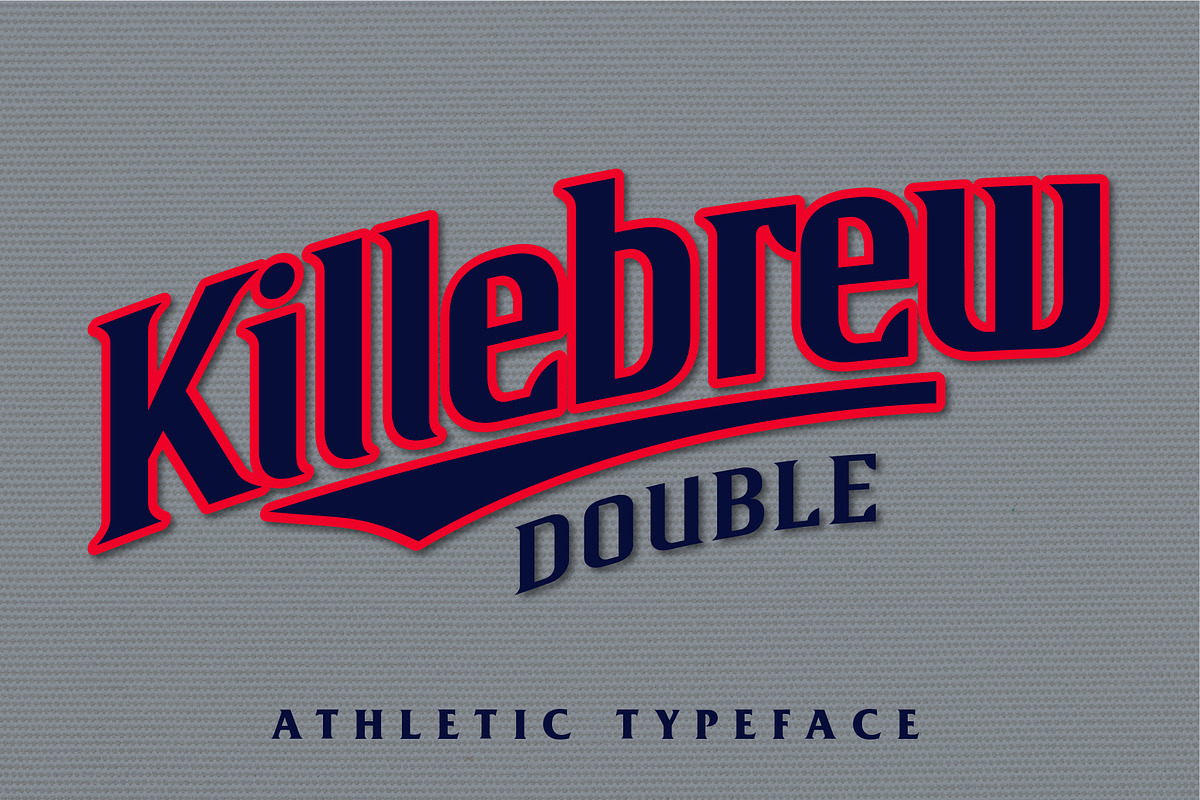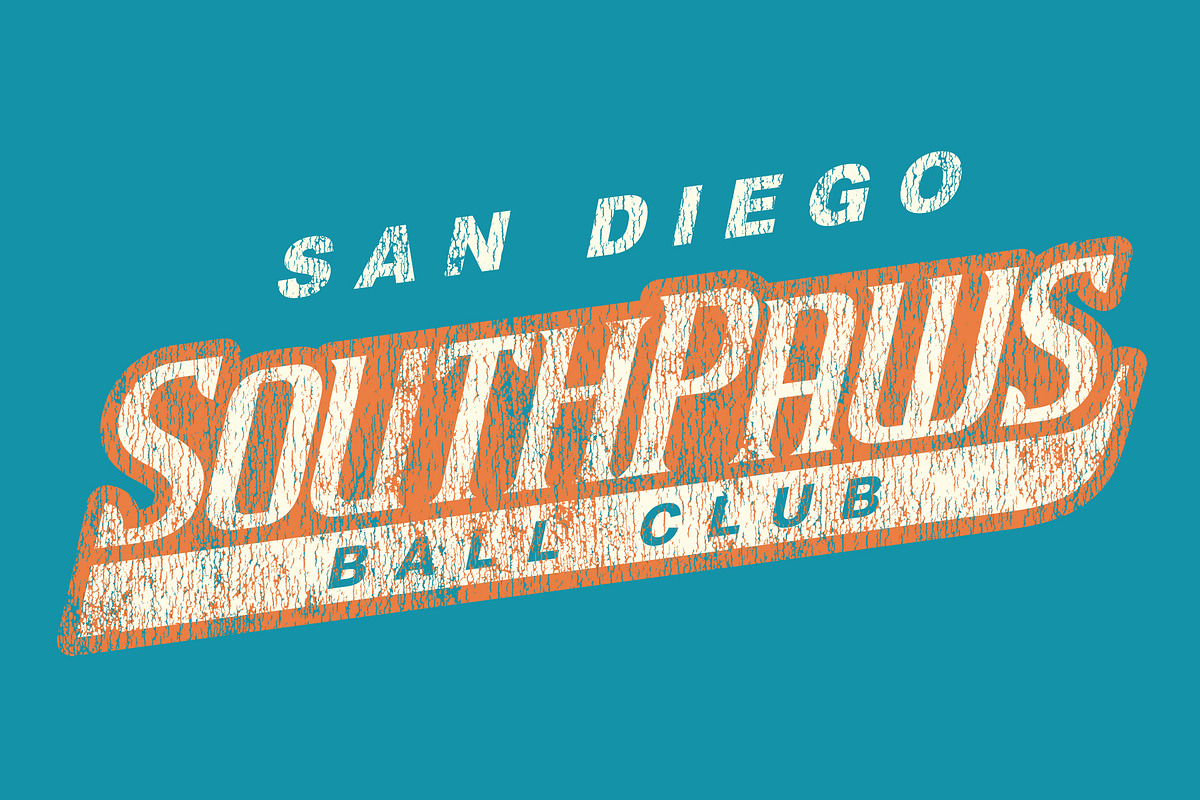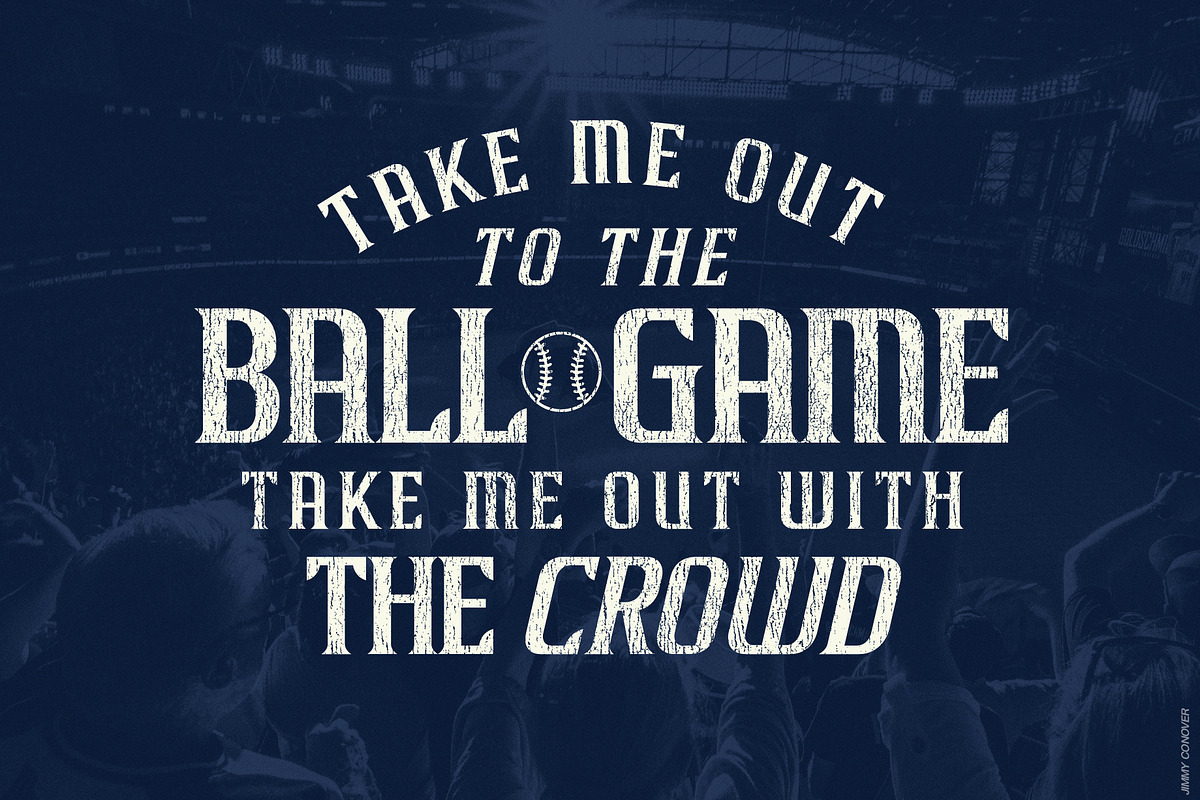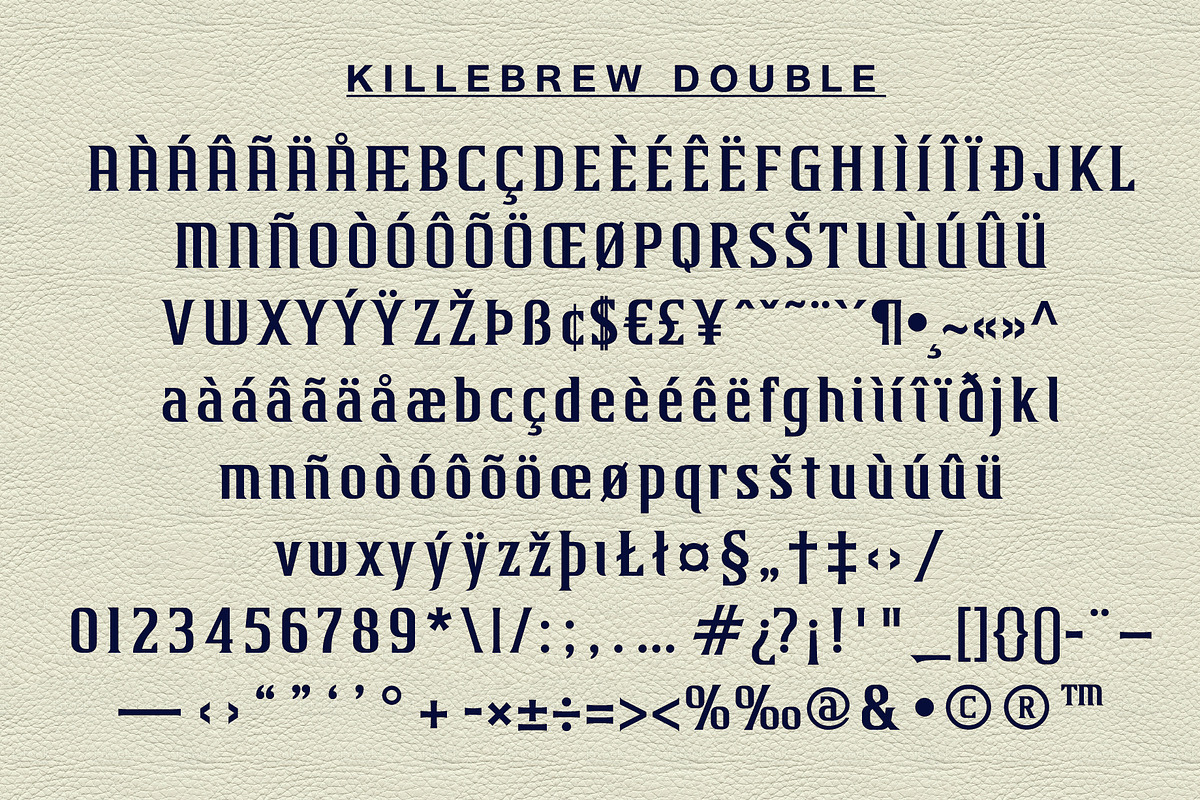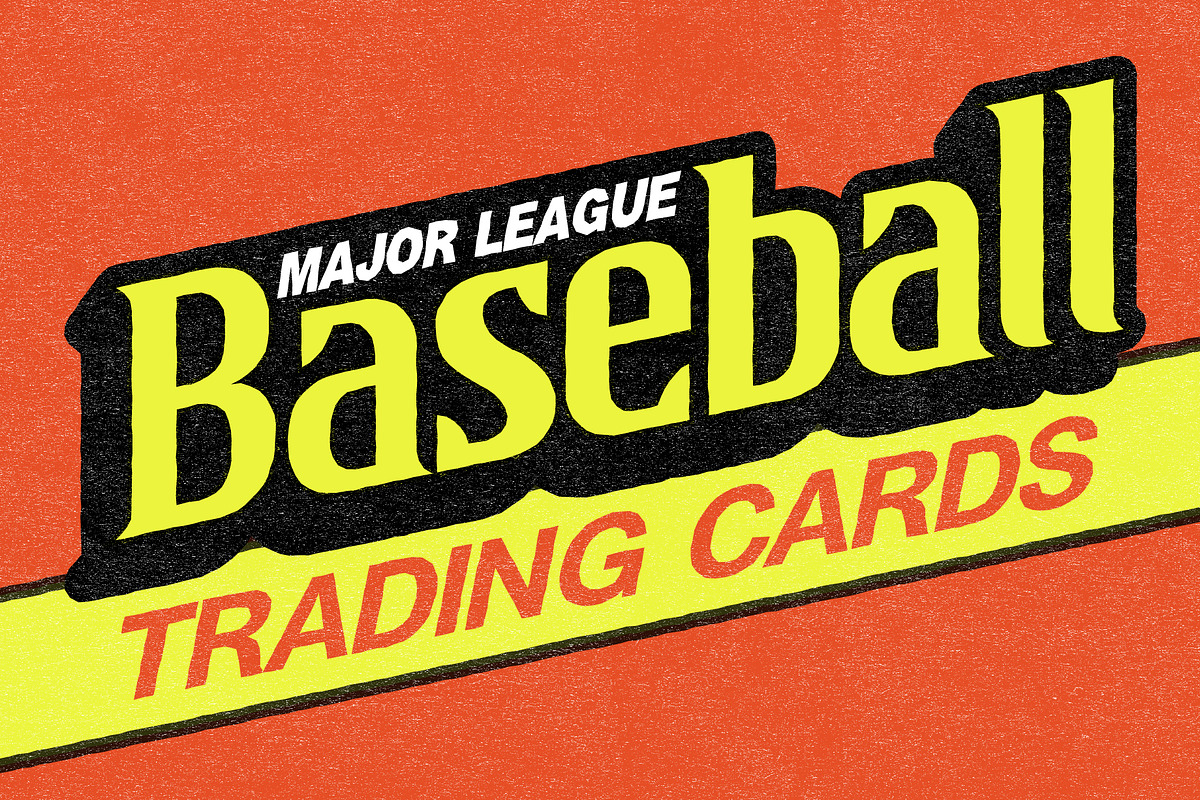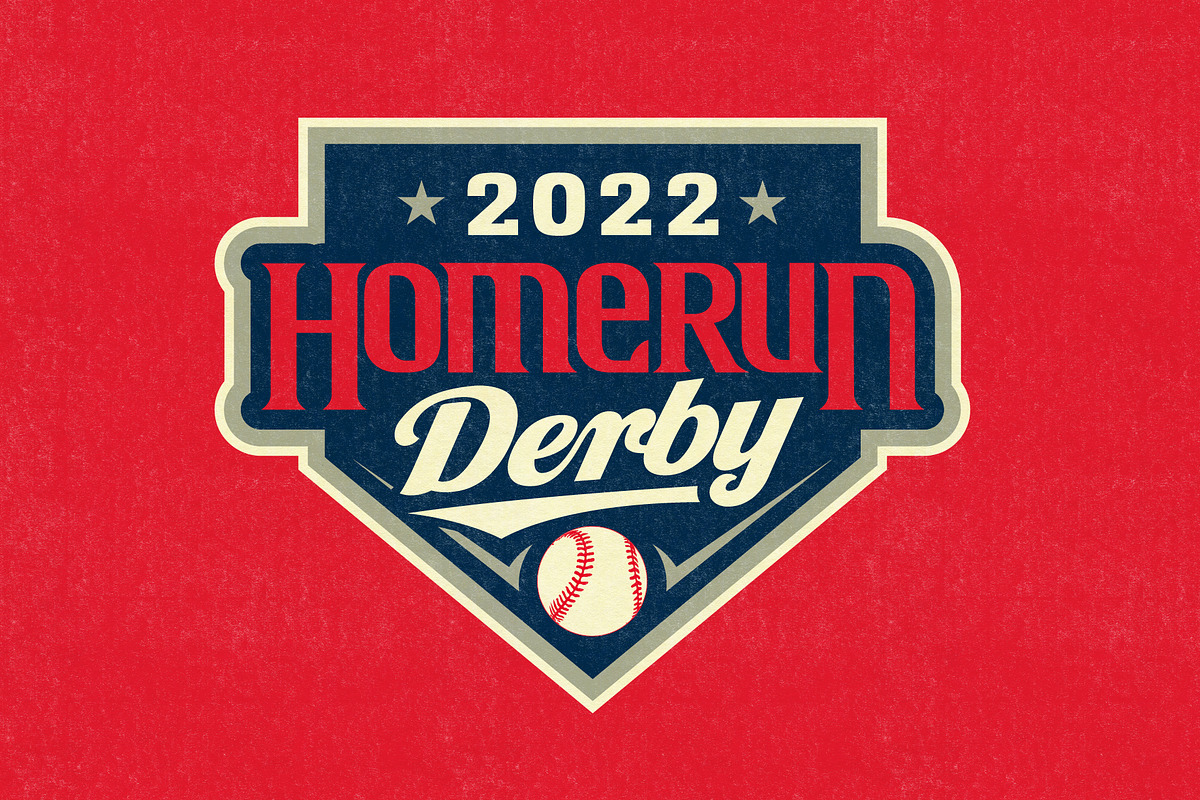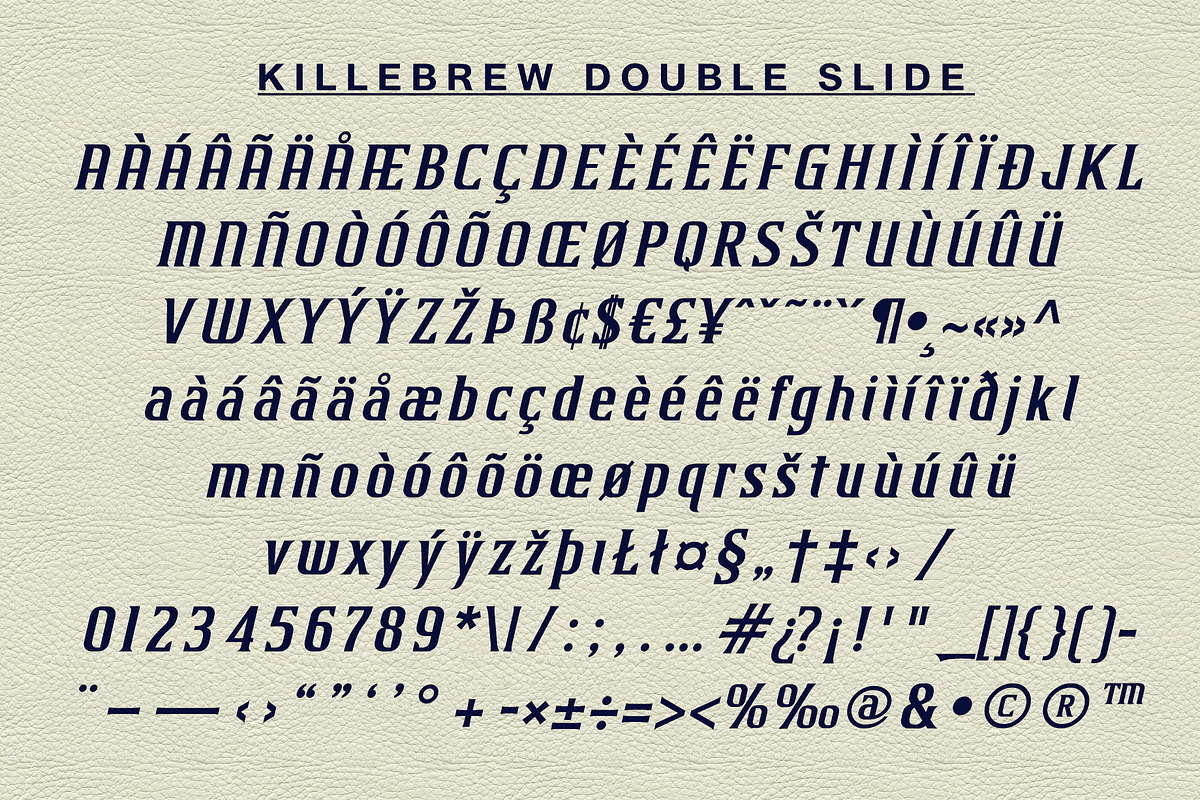
Killebrew Double | Athletic Typeface
Rounding first and headed to second is — K I L L E B R E W • D O U B L E — a much bolder addition to the Killebrew roster
Plating runs with outfield-piercing power is Killebrew Double — a trusty heavy hitter in the StudioWorks roster. Bolder strokes combined with Killebrew's signature points and tapered terminals make this typeface a stellar starter. Want to stretch that two-bagger another base? Turn on the jets with Killebrew Double Slide — an italic variant!
- TWO type styles – Double (regular) and Double Slide (italic)
- Upper (A-Z) and lower case (a-z) characters
- Numbers (0-9)
- Standard punctuation and glyphs
Use Killebrew Double for logos, posters and t-shirt designs — any project that requires some stylish bulk!